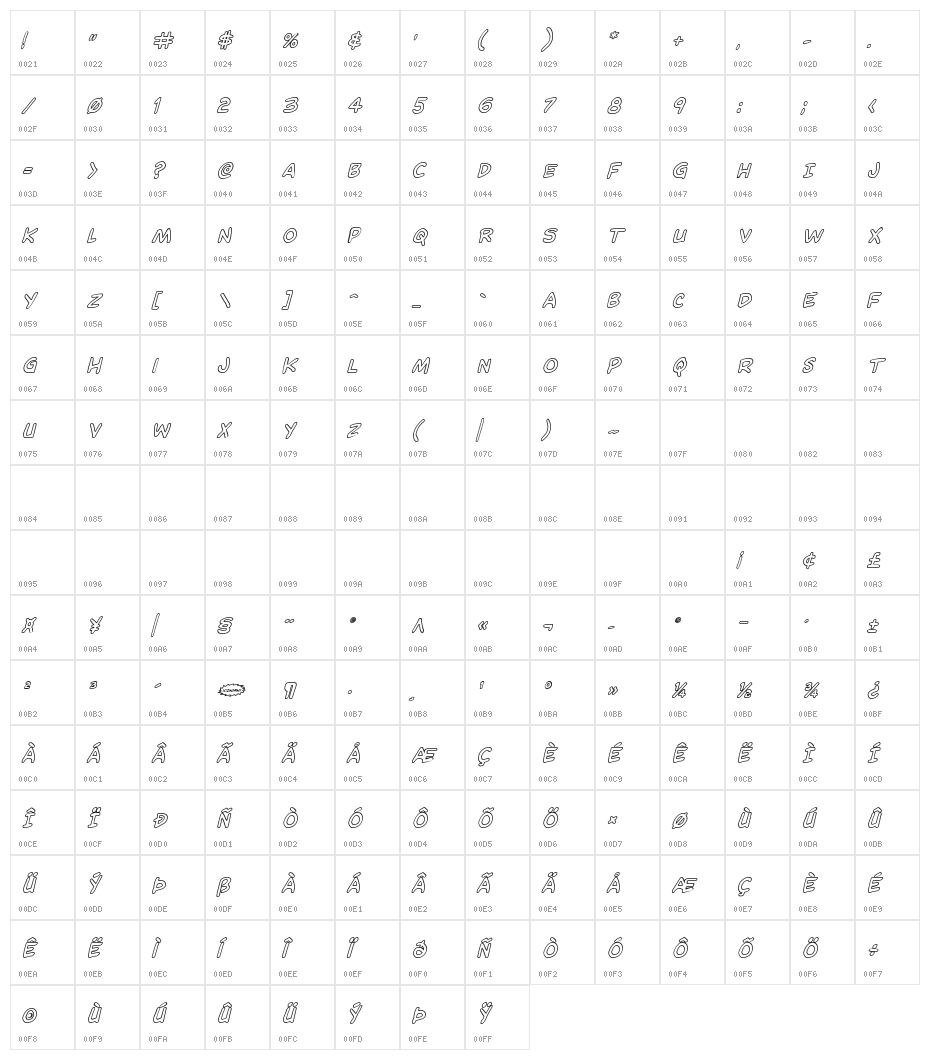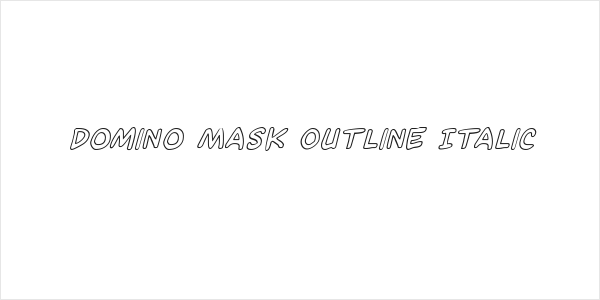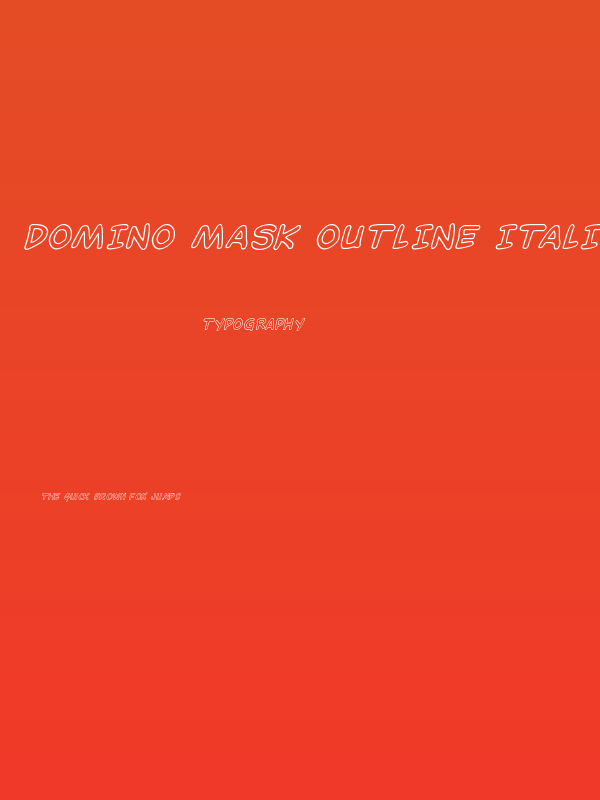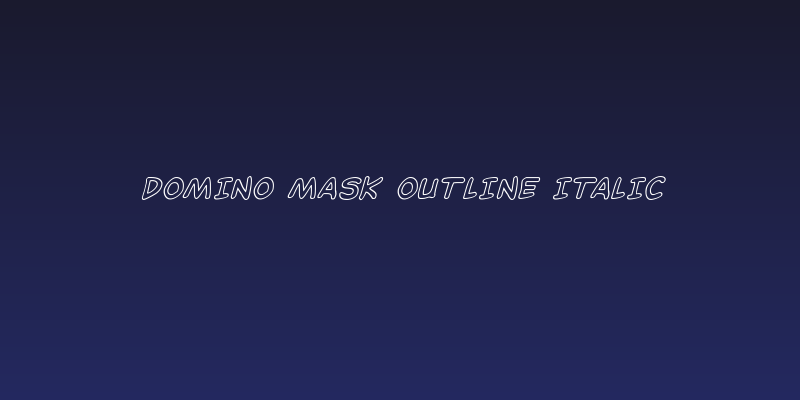
Domino Mask Outline Italic Font
Domino Mask Outline Italic Description
This font features a playful and dynamic outline style with a slight italic slant, giving it a sense of movement and energy. The characters are bold and rounded, with a consistent stroke width that maintains clarity and readability. The uppercase and lowercase letters are well-proportioned, and the numbers are distinct and easily distinguishable. Special characters are included, adding versatility for various design needs. The overall appearance is modern and fun, making it suitable for creative projects.
| Proposed Projects | Ideal for children's book covers, playful branding, event posters, and creative digital content. |